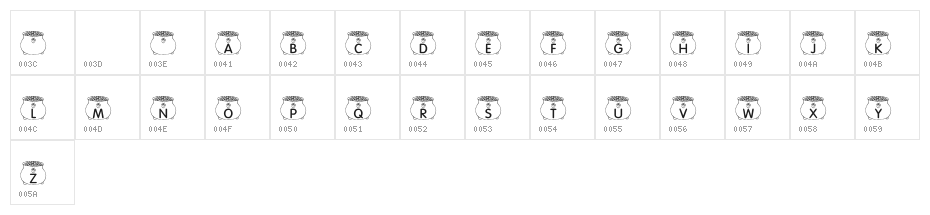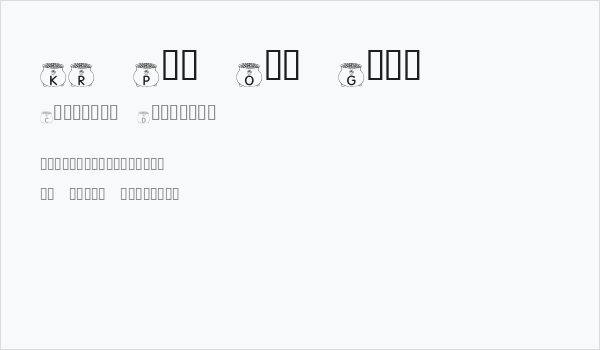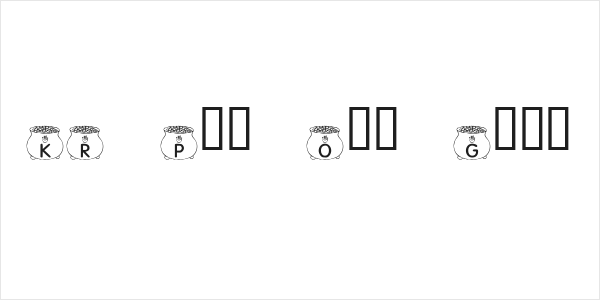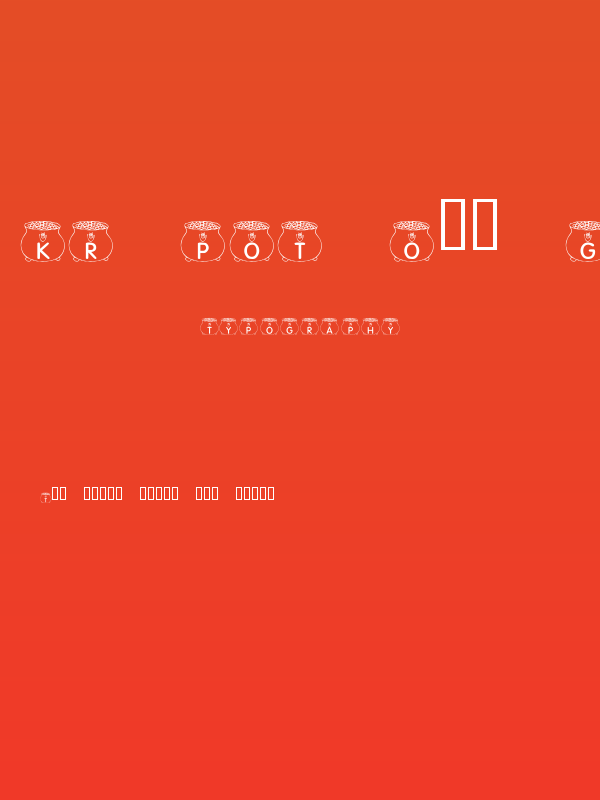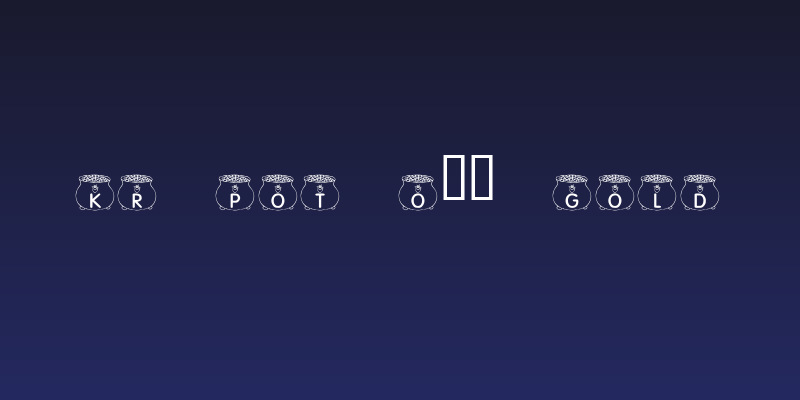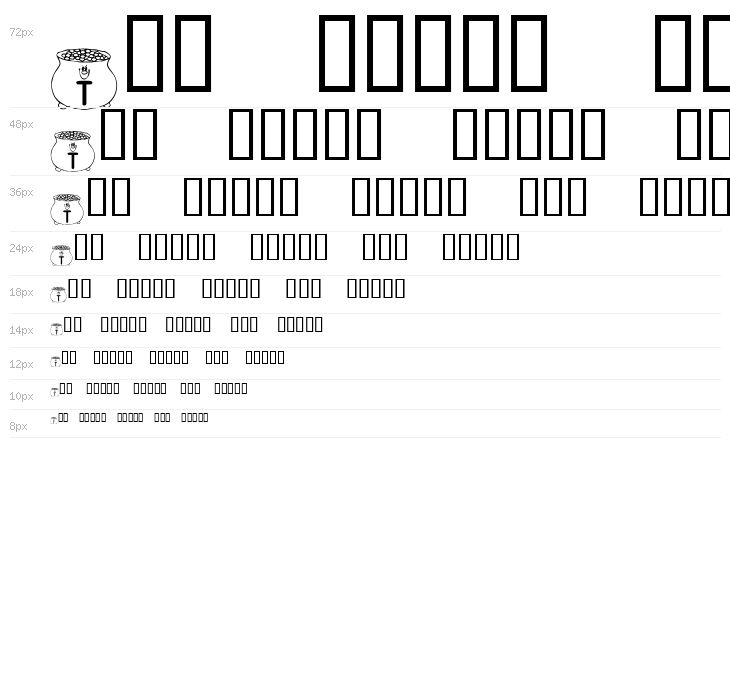
KR Pot O' Gold Font
KR Pot O' Gold Description
This decorative font features each character encased within a whimsical pot of gold, adding a playful and thematic touch to the design. The letters are bold and uppercase, with a consistent style that maintains readability while emphasizing a festive and unique appearance. The pots are detailed with a simple outline and a pile of coins at the top, enhancing the overall theme. This font is ideal for projects that require a fun and engaging visual element, particularly those related to celebrations, holidays, or themed events.
Proposed ProjectsIdeal for holiday cards, themed party invitations, festive banners, and children's event promotions.